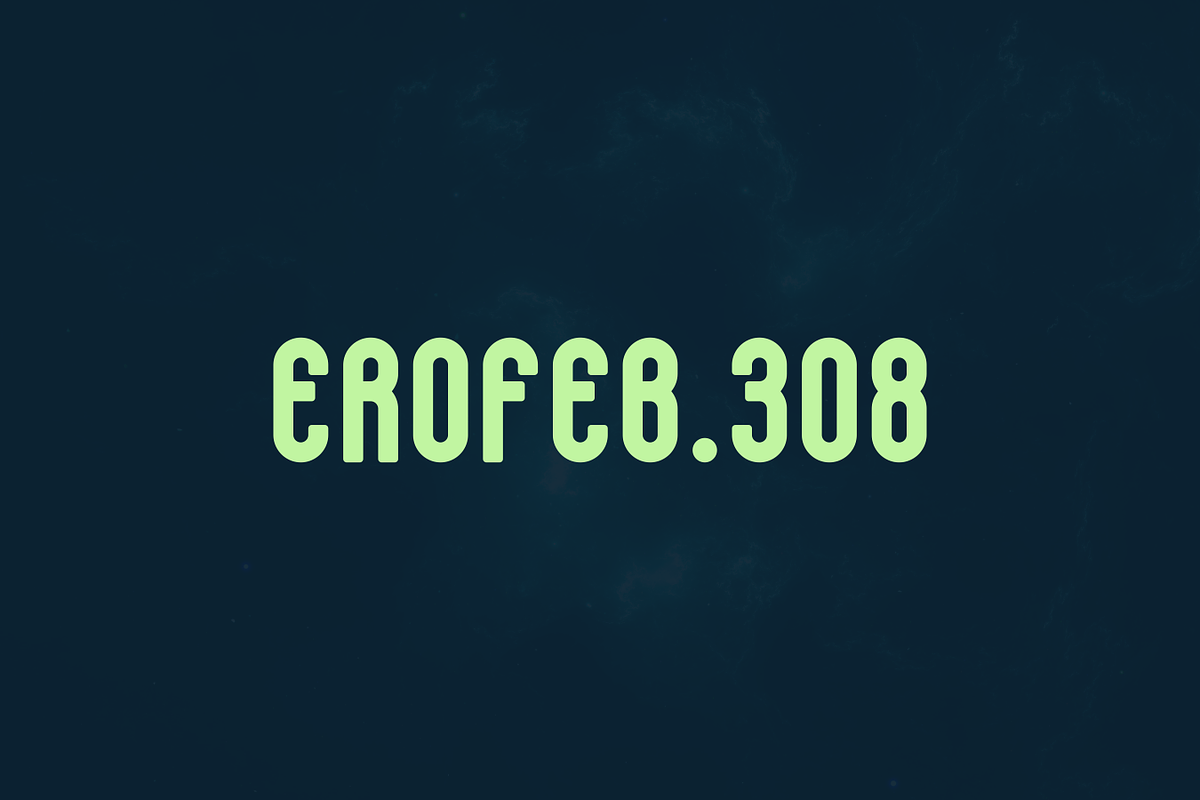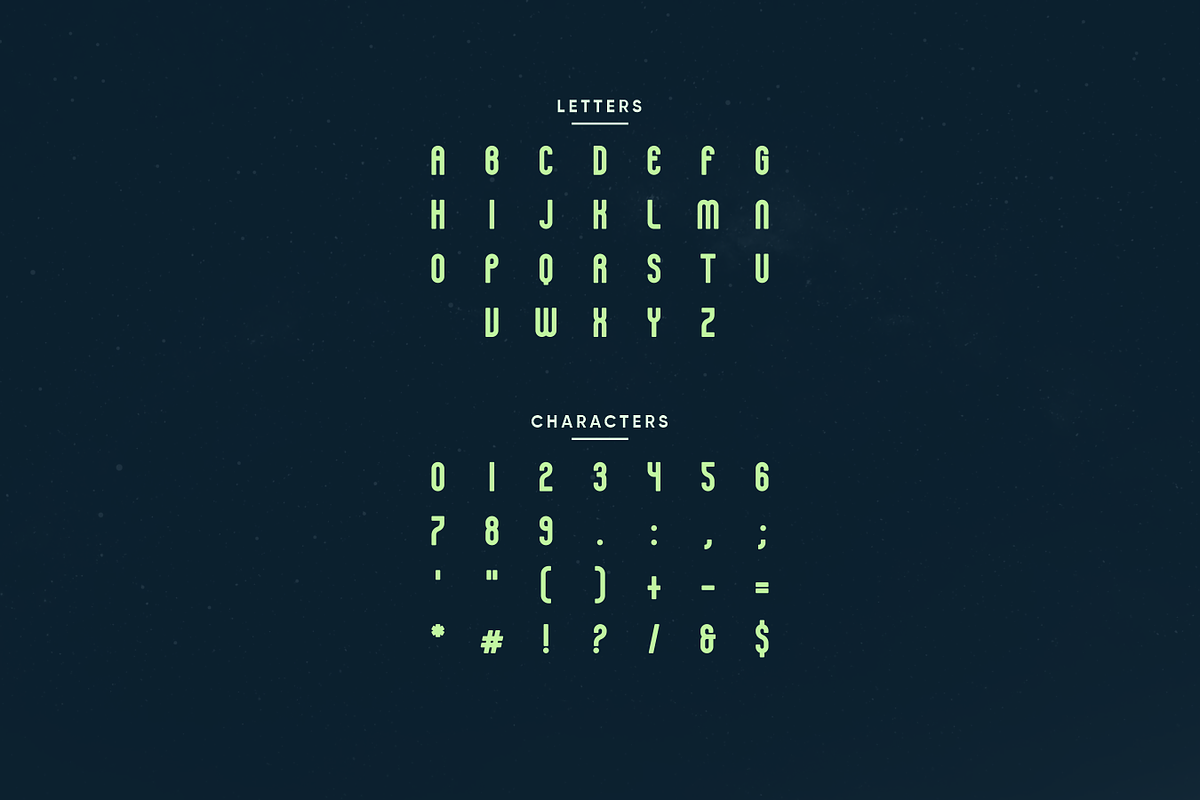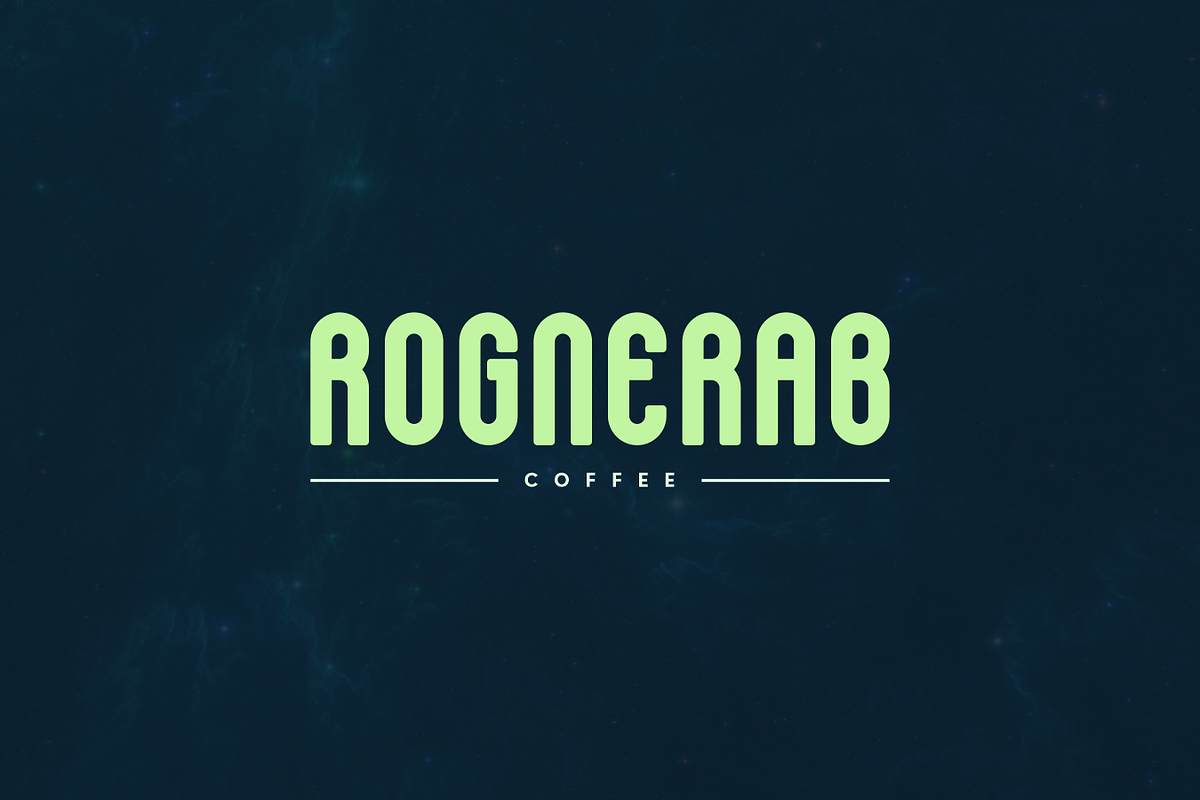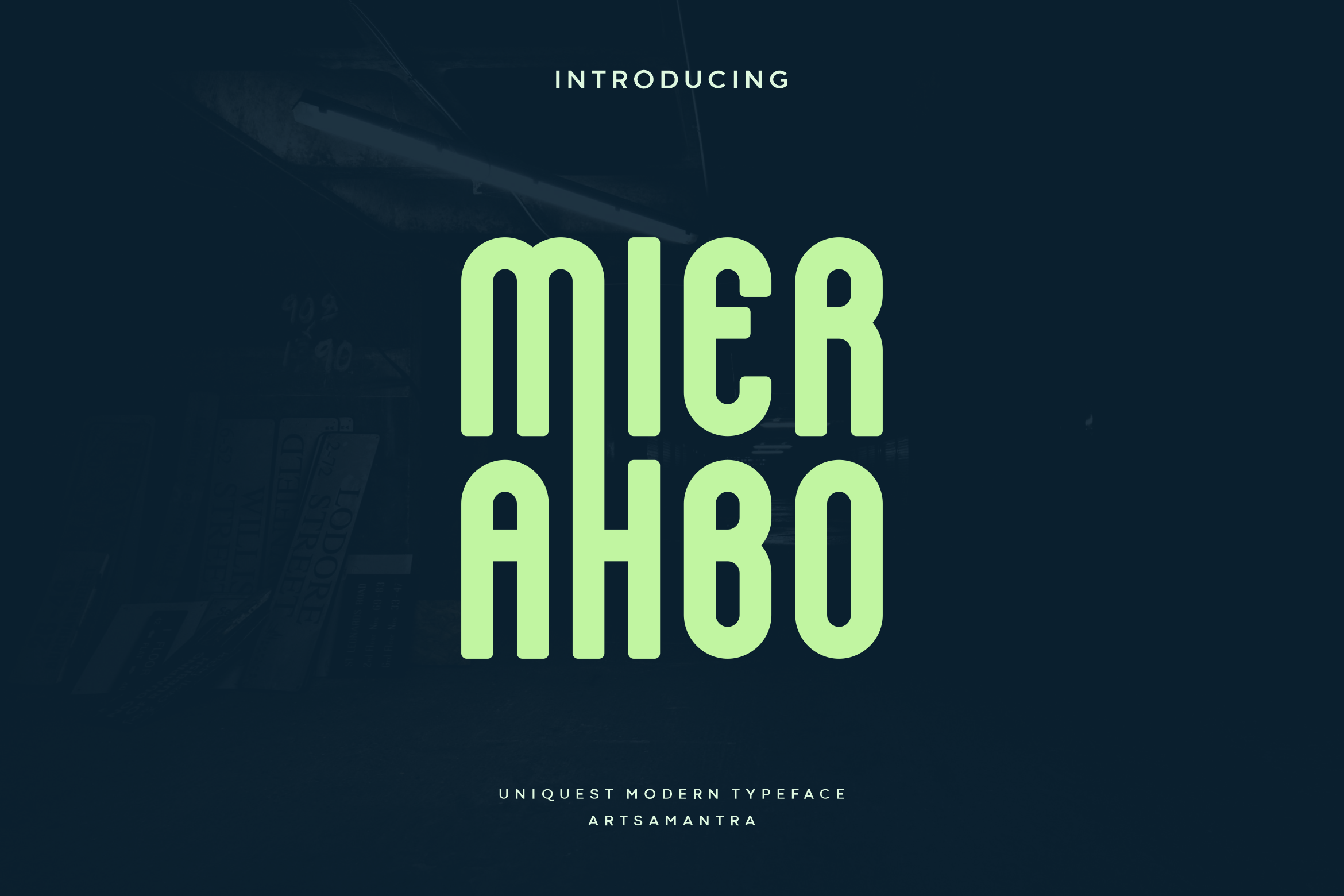
Mierahbo - Modern Display Typeface
Mierahbo is display font with a unique style with a little improvisation in the uppercase mode, although this font is all-caps but has a unique on on application. This font is very suitable for anything related to the future, illustration, poster, title, logo, magazine, or various other designs, you will get a different experience and stand out in your designs.